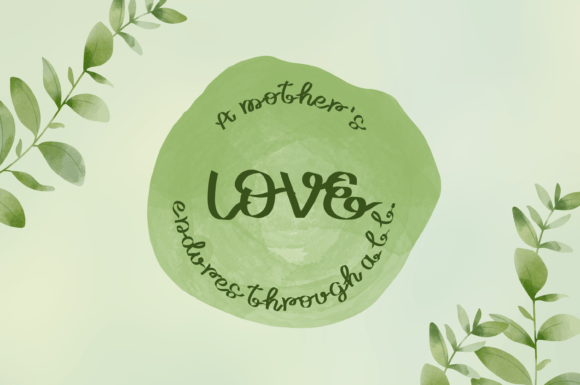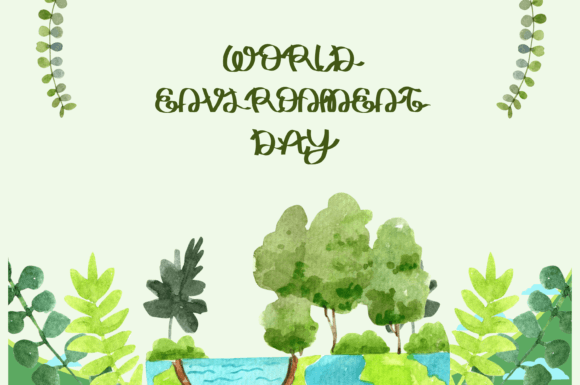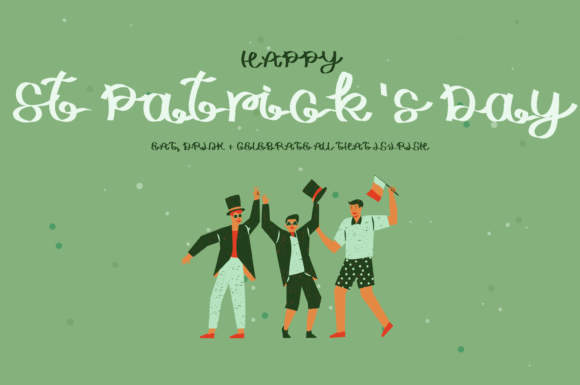
Introduction to Green Topaz Font
Have you ever found yourself sitting in front of a blank page, staring at a screen full of possibilities, and feeling the creative itch to bring something new to life? For designers, this moment is a thrill, and the right tool can make all the difference. That’s where the Green Topaz Font comes in – a beautiful, whimsical handwriting font that adds a touch of magic to any project.
With its clean and elegant design, the Green Topaz Font is the perfect addition to any creative project. Whether you’re working on a design resource for a free download or a high-quality commercial project, this font is sure to make your work stand out. Its transparent background and versatile style make it a valuable asset for designers who want to add a personal touch to their designs.
Key Features of Green Topaz Font
- Unique and elegant design, perfect for creative projects and artistic expressions
- High-quality font with a transparent background, allowing for seamless integration with any design
- Perfect for use in creative projects, such as logos, graphics, and typography-based designs
- Unique characteristics: elegant script, subtle texture, and sophisticated feel, making it ideal for high-end designs
Honest Review: Green Topaz Font
As a designer, I was excited to try out the Green Topaz Font, a free download that promises to elevate any creative project. After putting it to the test, here’s my honest review.
- High-quality typography: The font is clean, modern, and perfect for any design project that requires a touch of elegance.
- Transparent background: This feature allows for seamless integration with any design element, making it a great resource for designers.
- Limited font styles: While the font itself is beautiful, it’s limited to a few styles, which may not be enough for designers who need more flexibility.
- No bold or italic options: If you need to emphasize text, you’ll need to rely on other fonts or manual formatting.
Overall, I’m impressed with the Green Topaz Font. While it has its limitations, it’s a great resource for designers who need high-quality typography with a transparent background. With a little creativity, you can work around its limitations and create stunning designs.
The Green Topaz Font is suitable for a variety of creative projects, including:
- Logo designs
- Print materials (business cards, brochures, etc.)